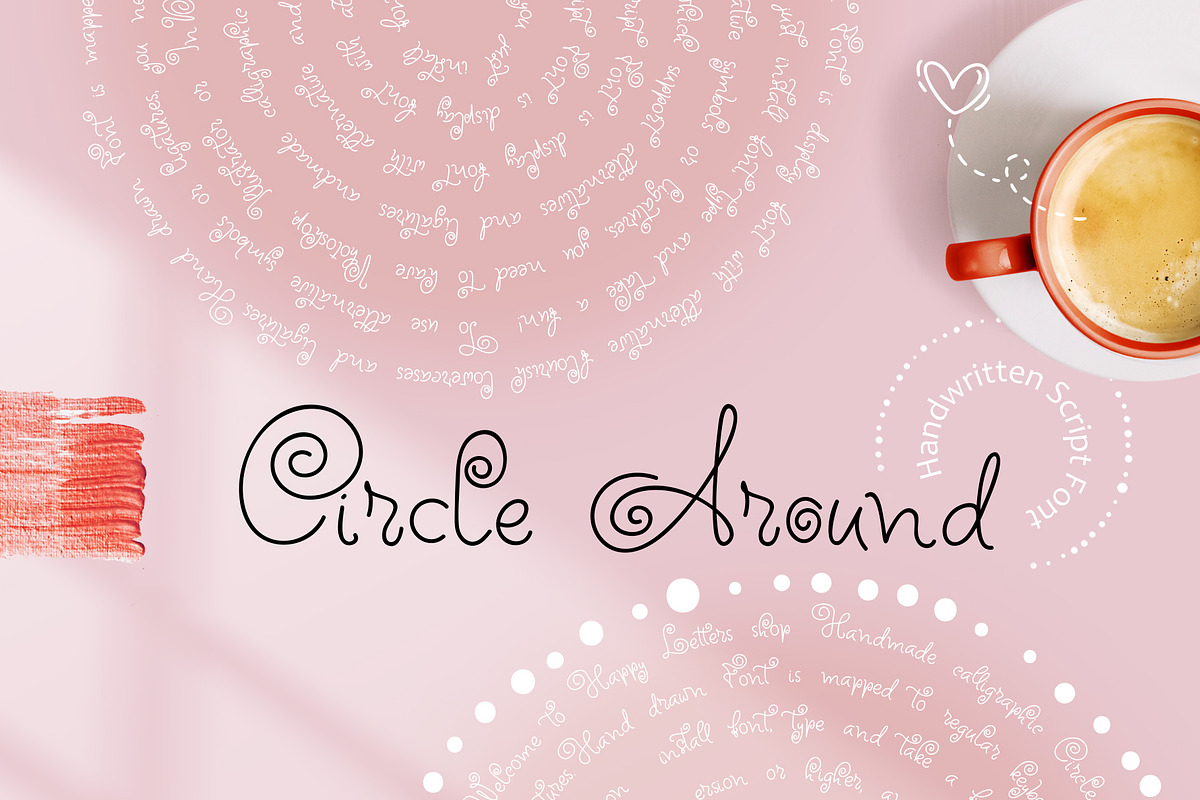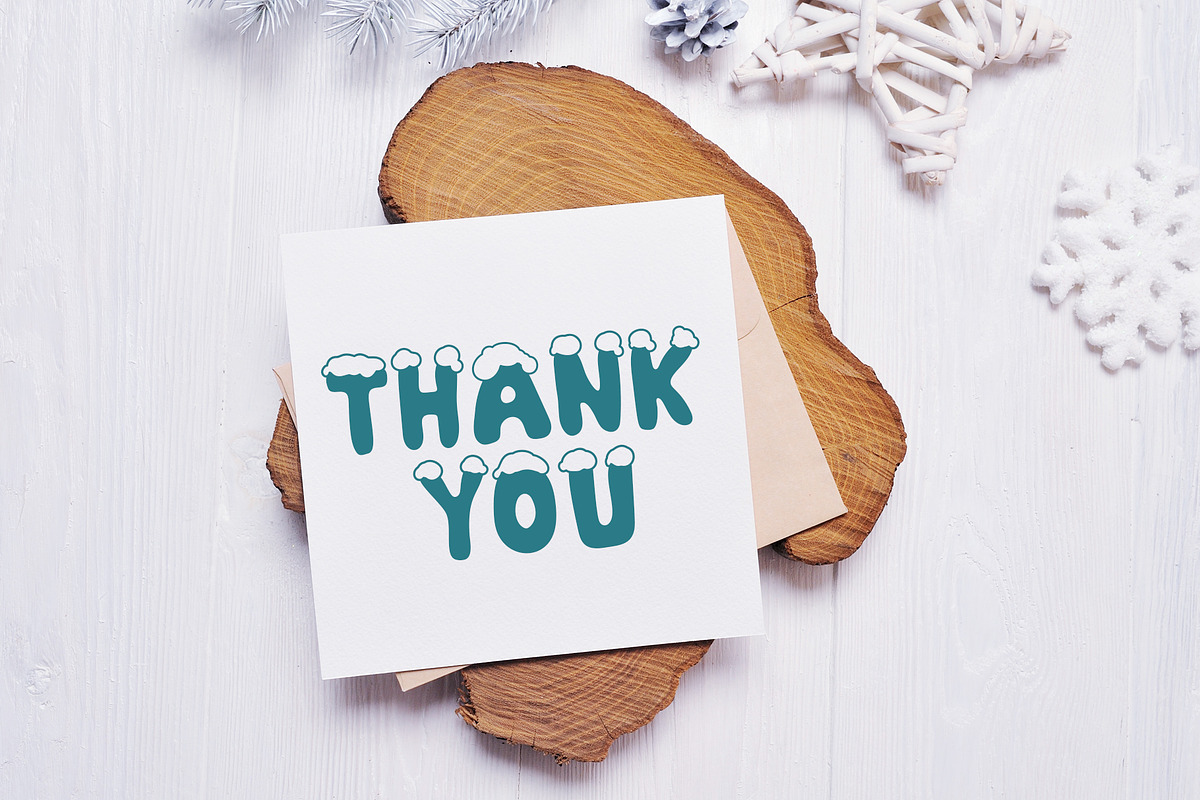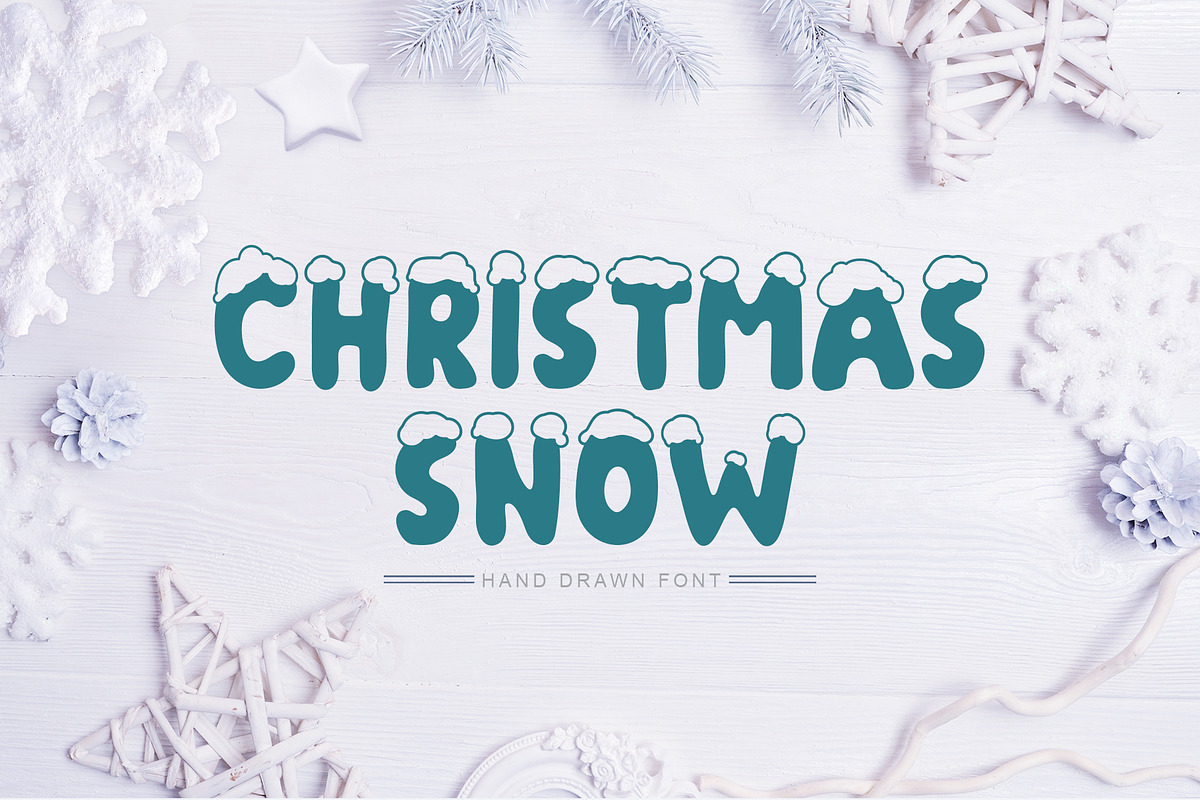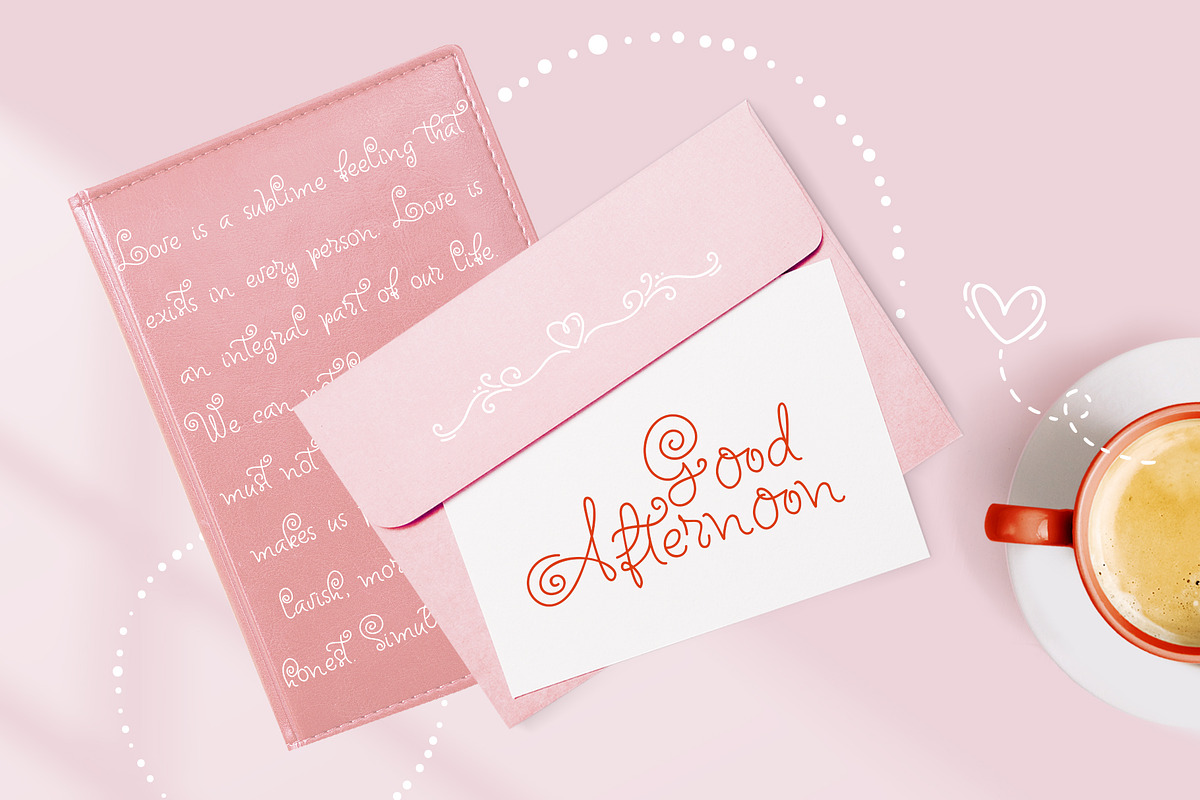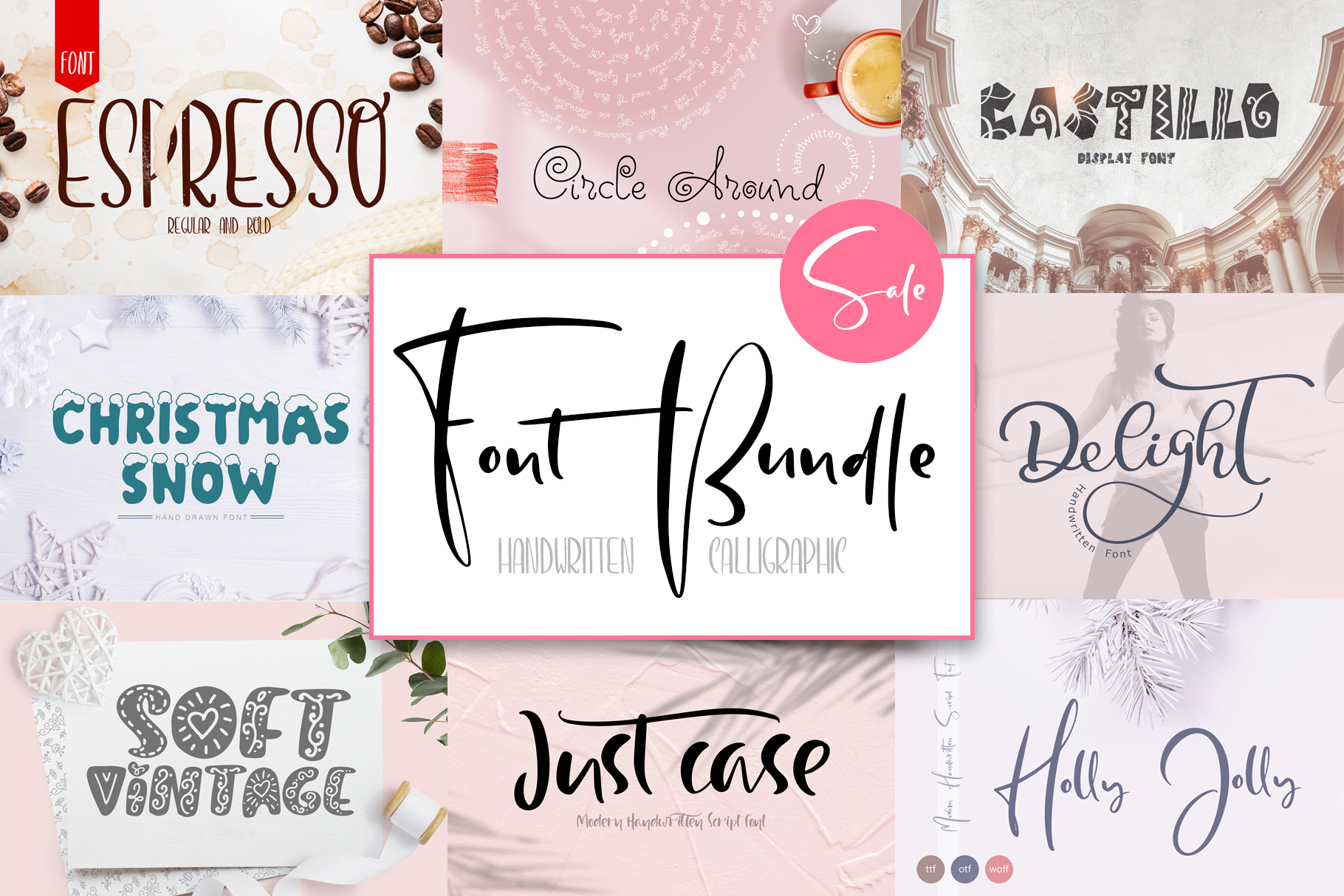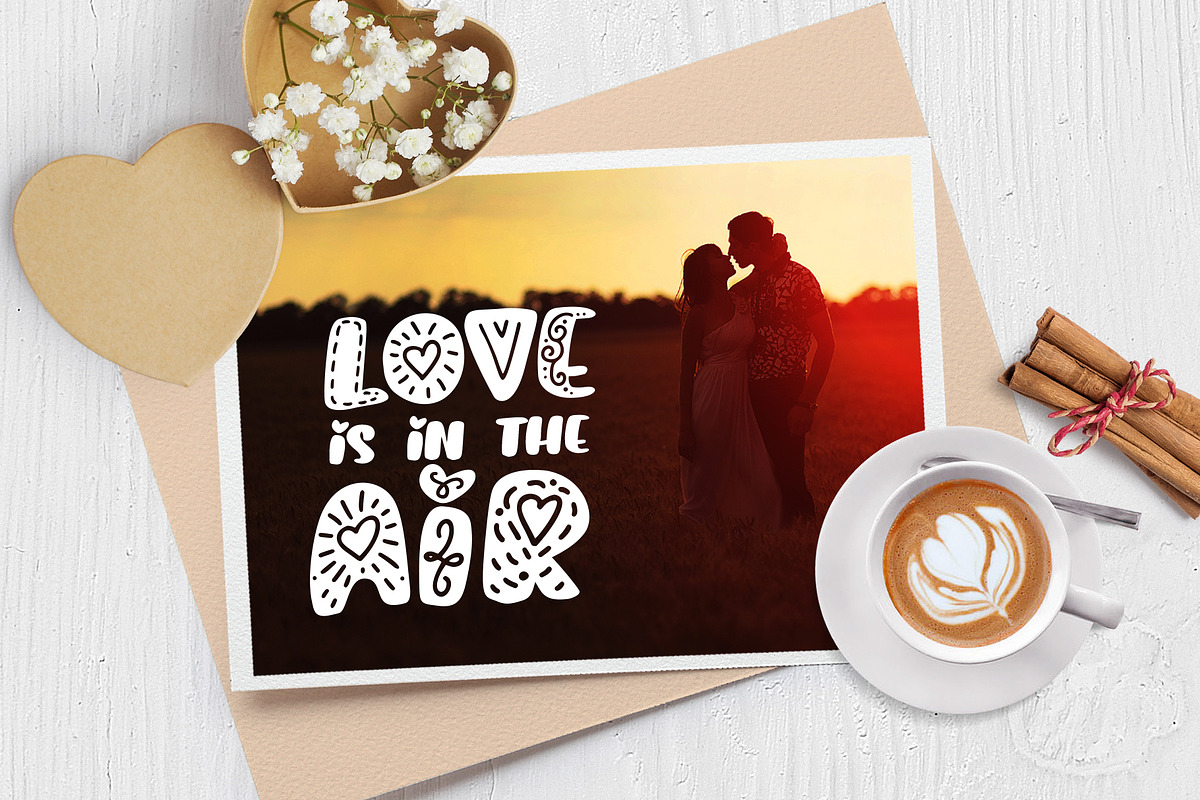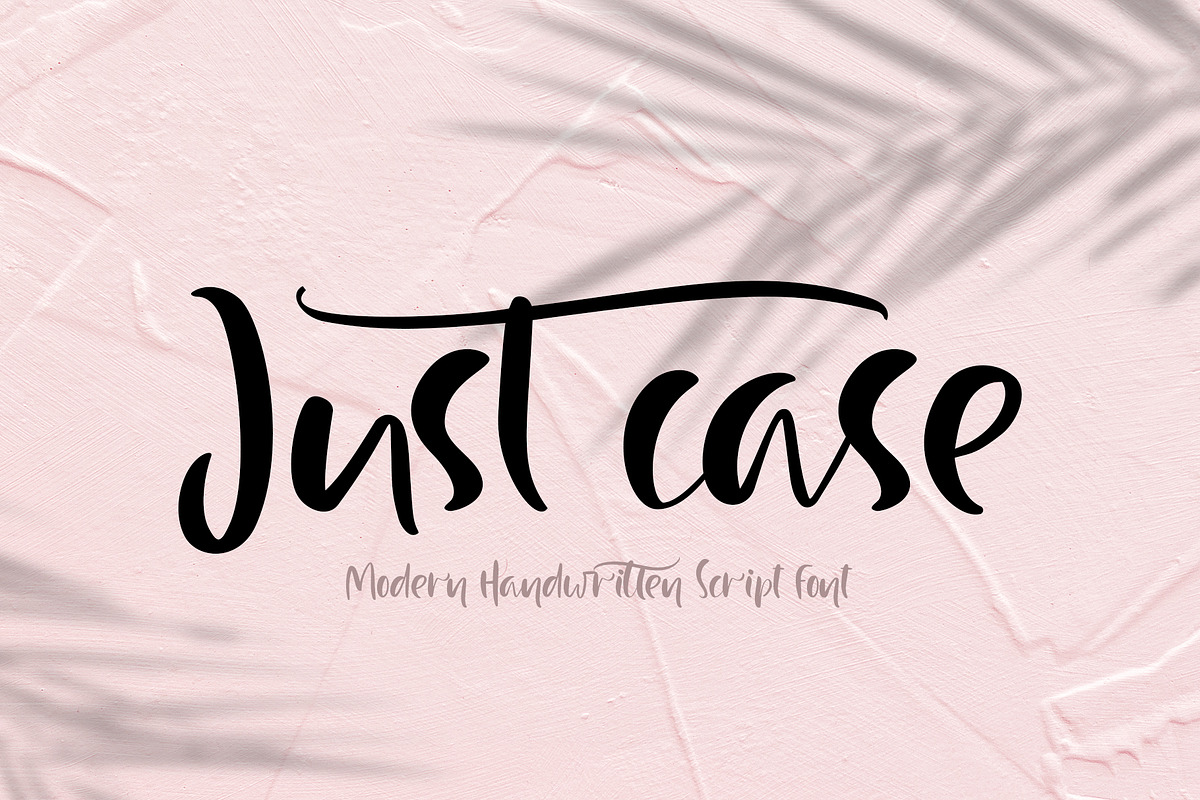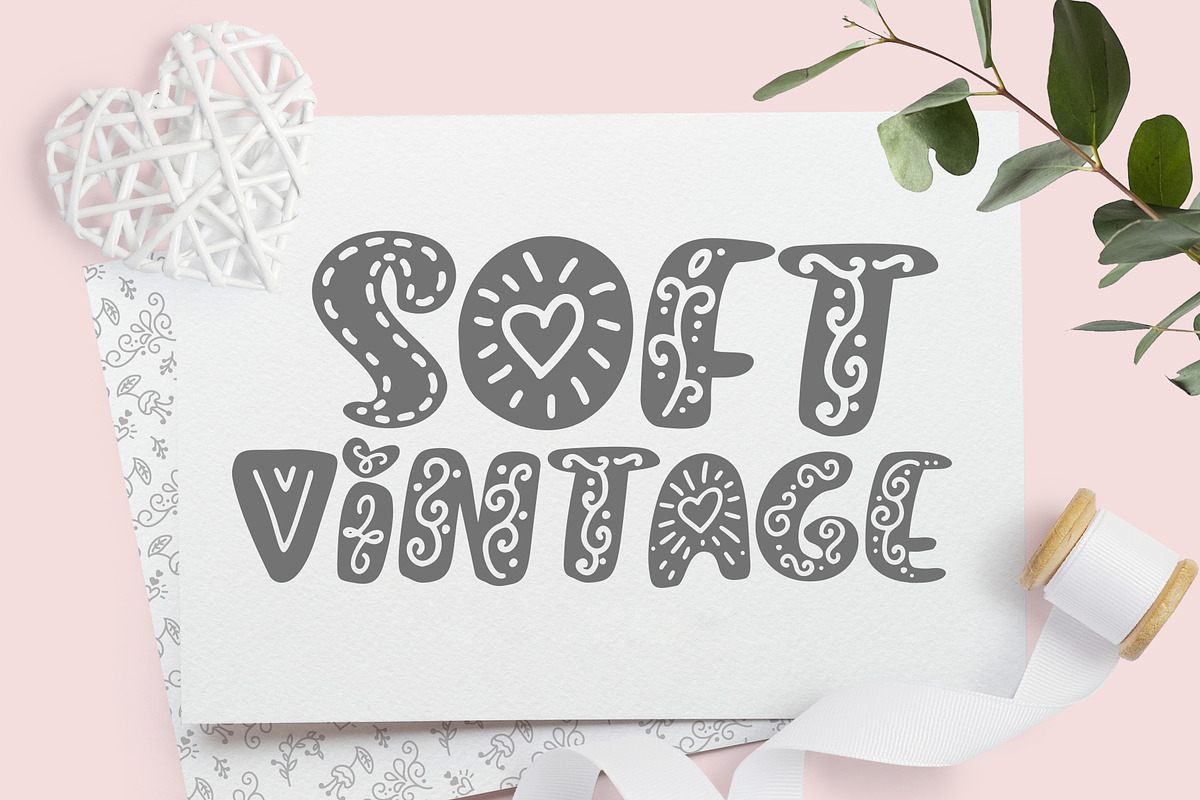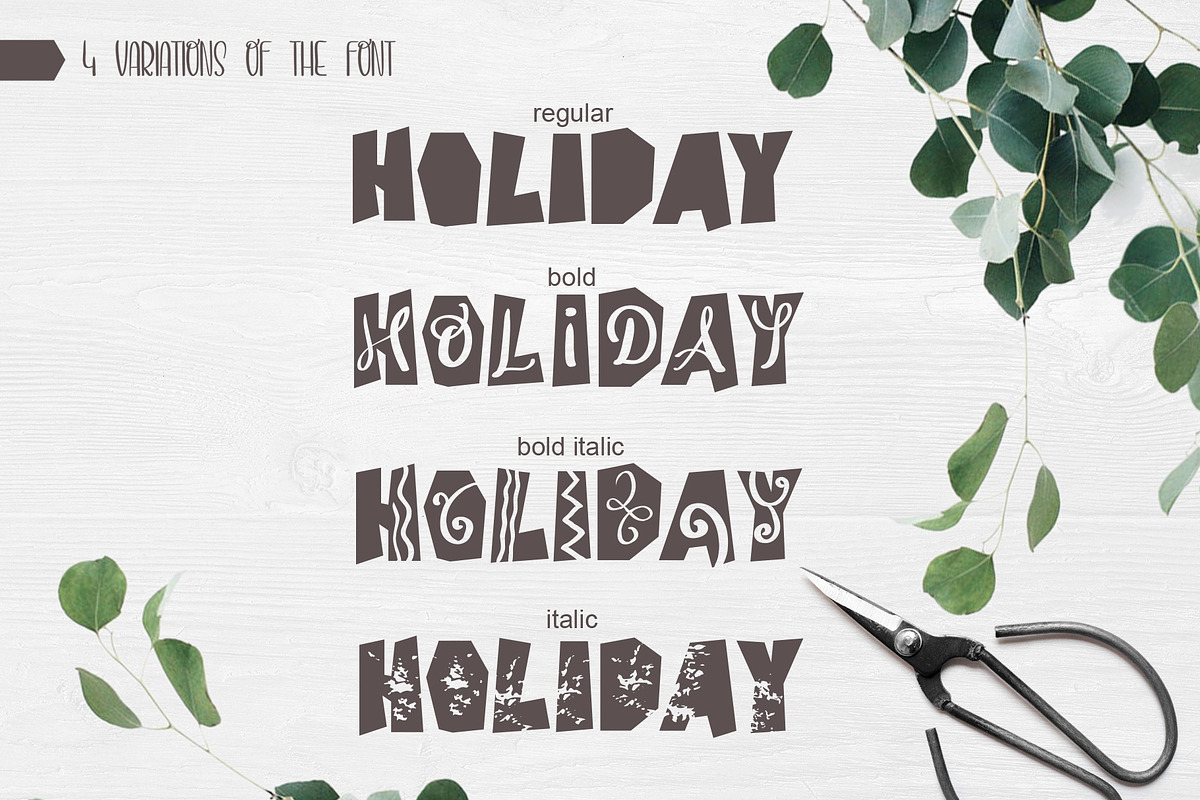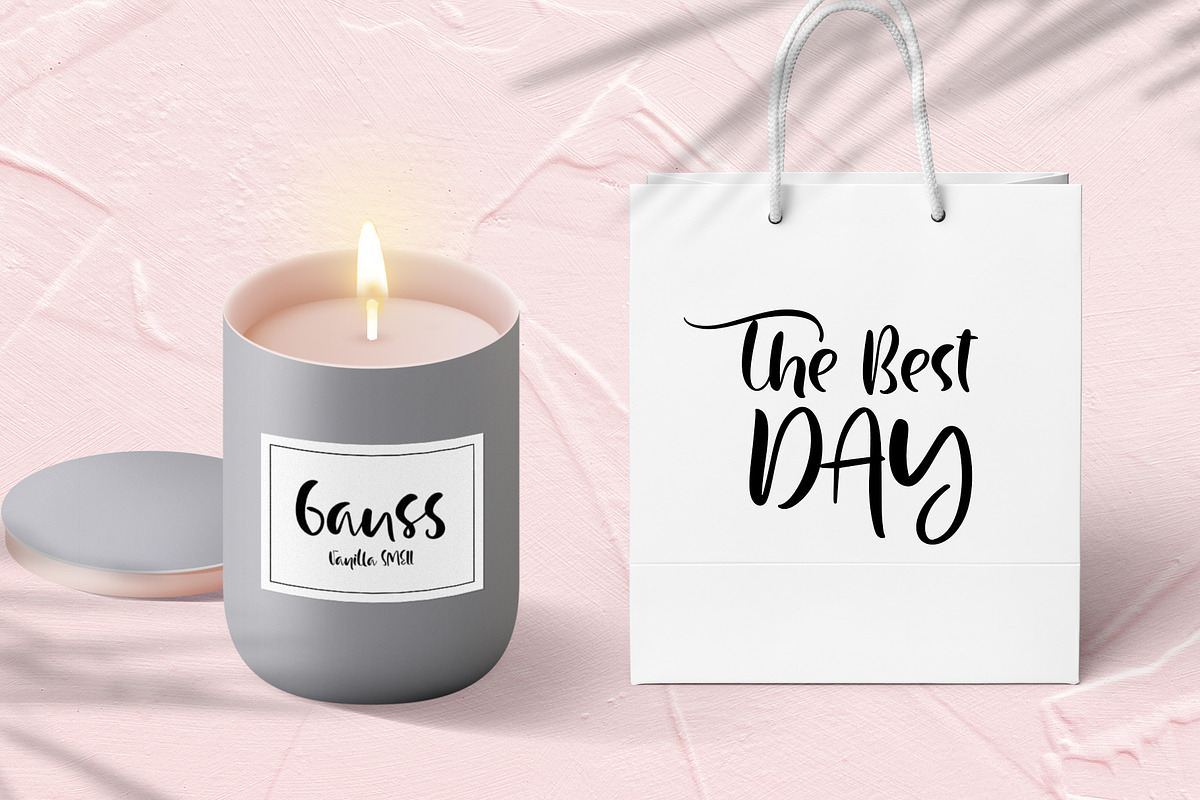
Font Bundle Handwritten Calligraphic
Circle Around handwritten Kids Font includes unique swirly upercase and lowercase characters, number and punctuations. This font have alternatives in characters - & c h k l m n o r s t y z. And ligatures - Th dt ff ft ht kk kl kt ll lt oo rr ss st th tt.
Holly Jolly Hand Drawn Font is beautiful instrument for designers, blogers and everybody who loves handwritting calligraphy, for fans of puzzles and flowery flourish whorls.
Handmade calligraphic Just Case Modern Script Font is display font with alternative flourish lowercases and ligatures.
Castillo is Regular, Italic, Bold and Bold Italic unique handmade font which is well suited for the design of children's books, comics, antique subjects, other.
A funny scandinavian modern display font in two styles. Softvintage is the font is to help yourself while enjoying the world.
Espresso is Regular and Bold unique handmade font that give a charm and romantic holiday greeting cards, invitations. It`s elegant lettering font like a light breeze give freshness and dreaminess to your handmade creations.
Winter handmade Christmas Snow Hand Drawn Font is modern display font.
Titles for kid`s book, scrapbook, logo, icon, phrases or quotes for winter greeting cards (Christmas or New Year holidays), invitations photo overlay, short phrases, children’s book, gift shops tag, presentation in social media Pinterest, Instagram, Facebook or other.